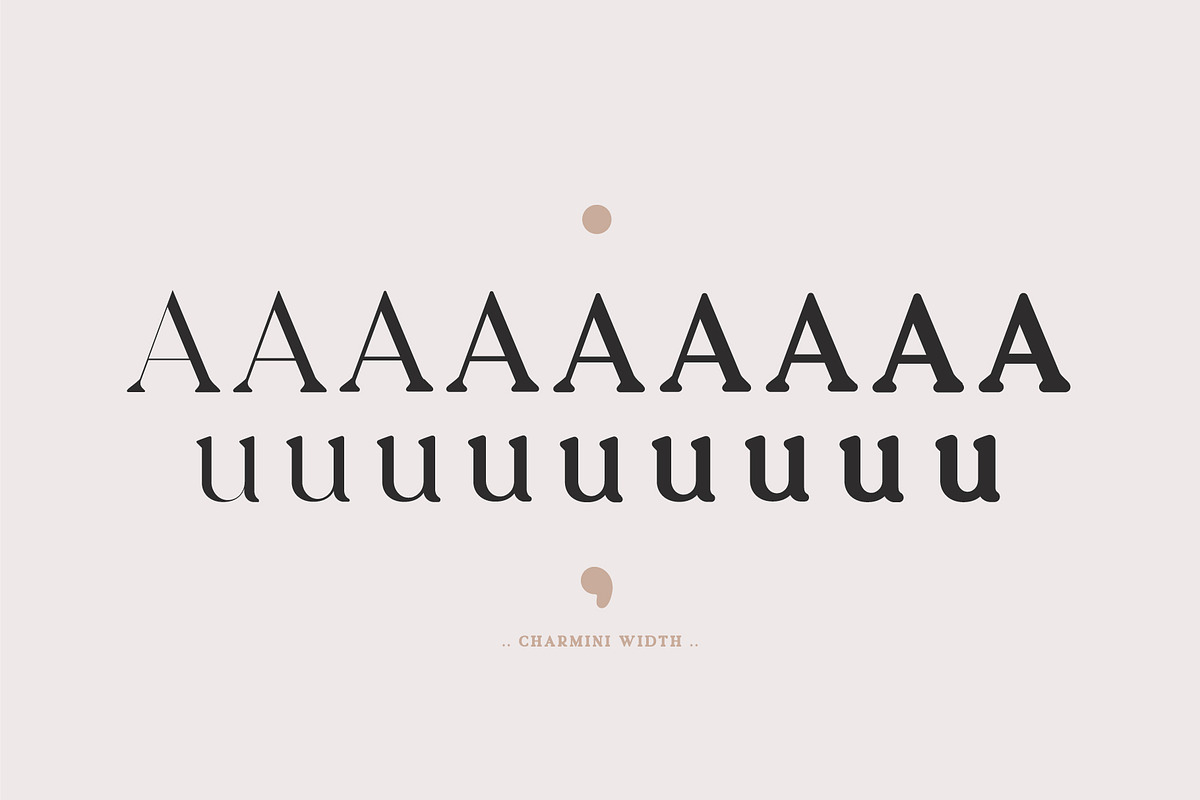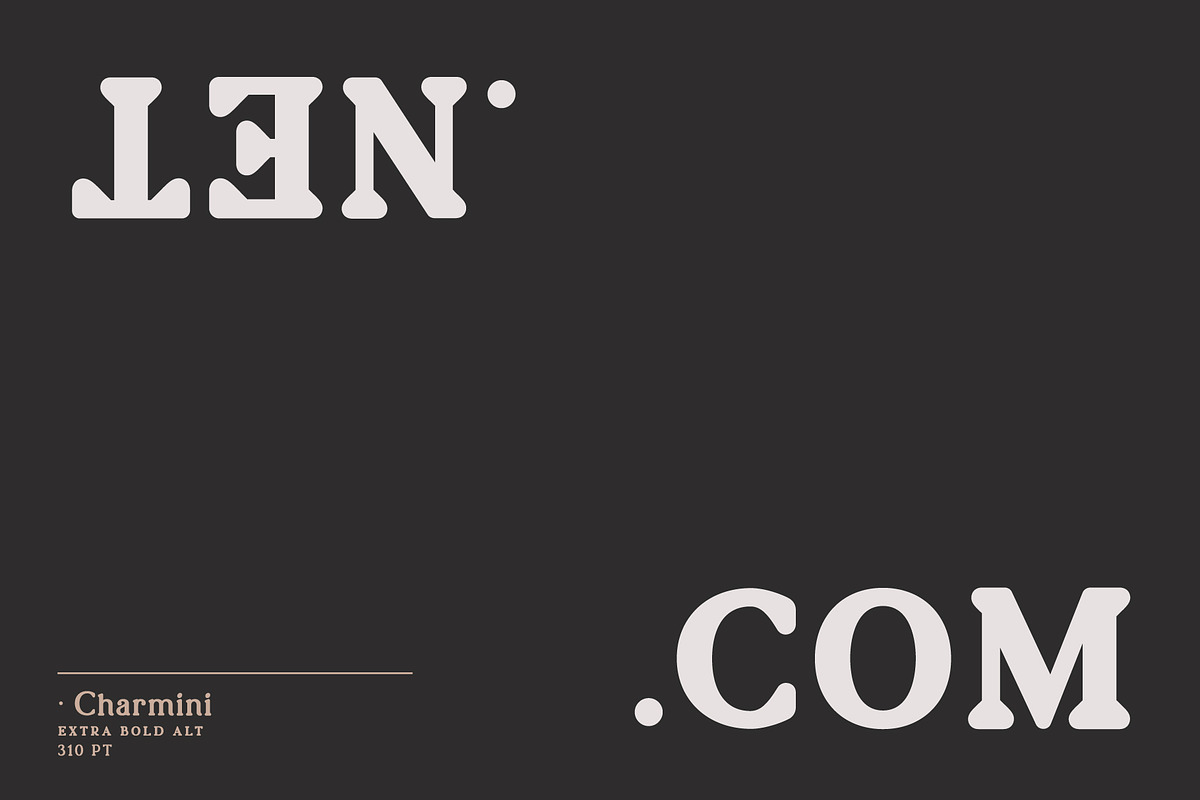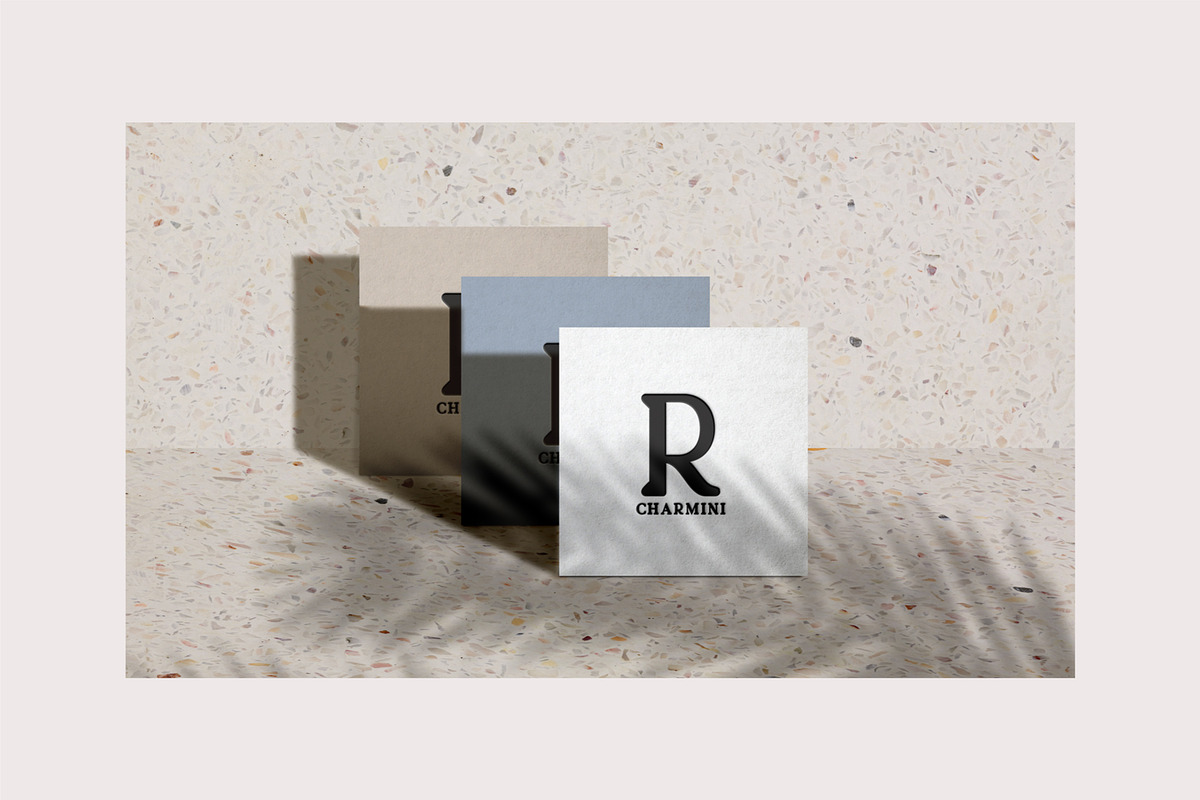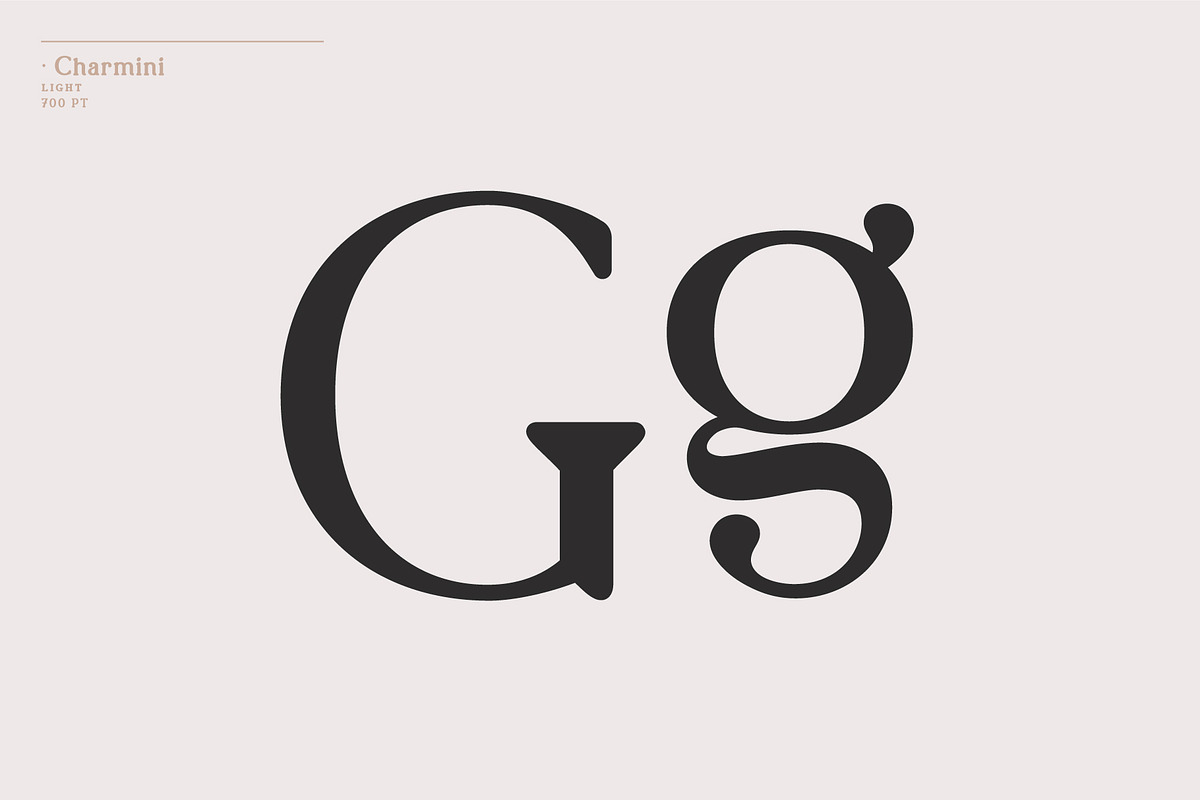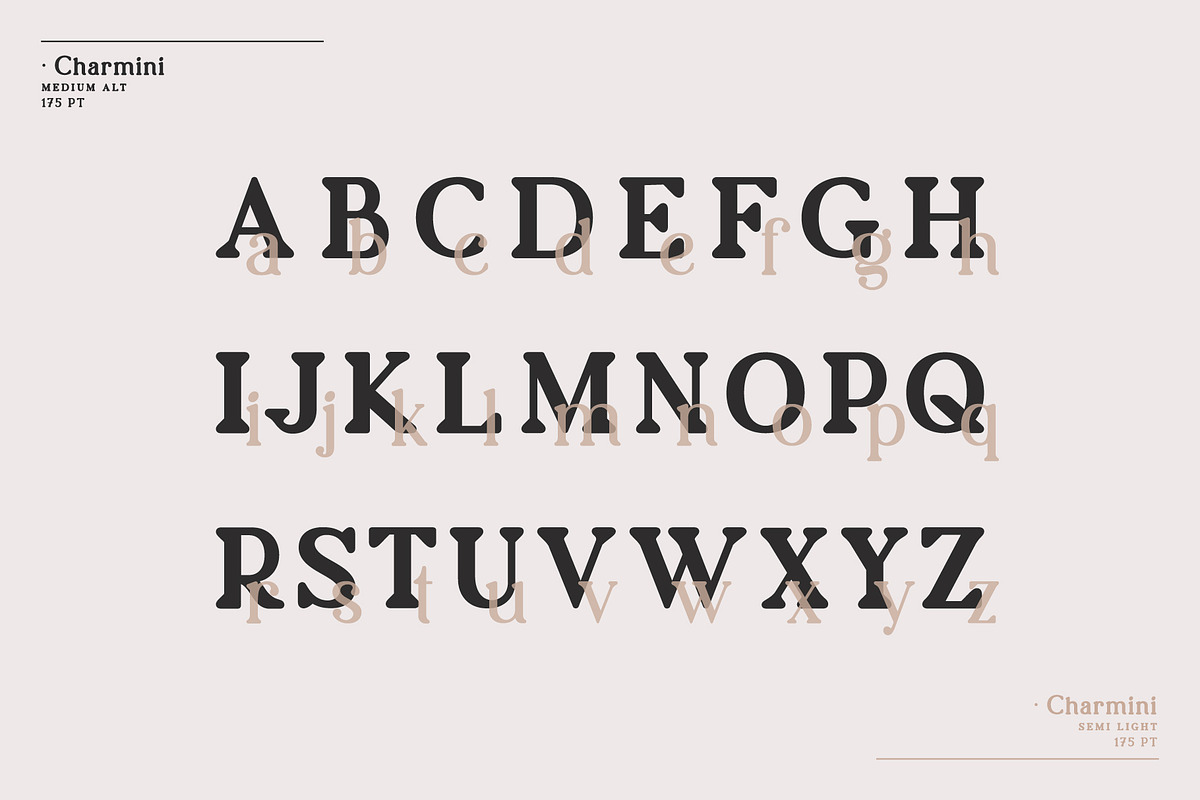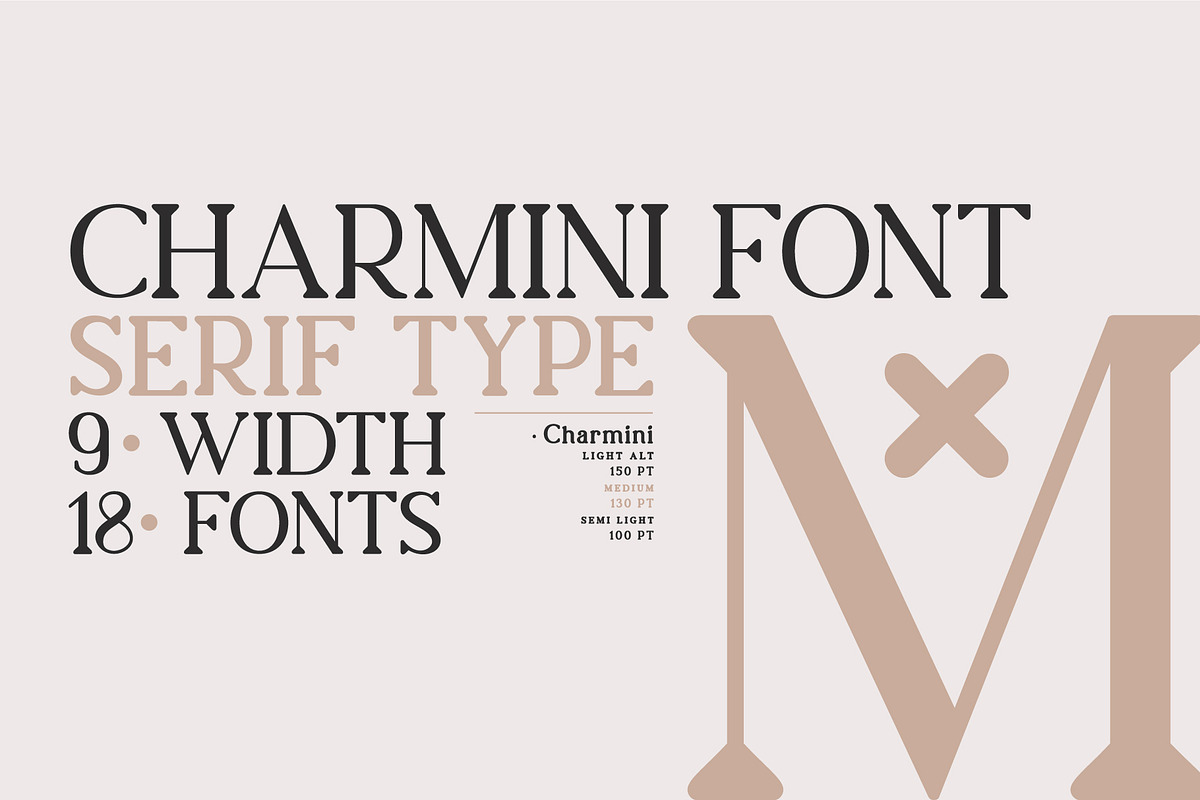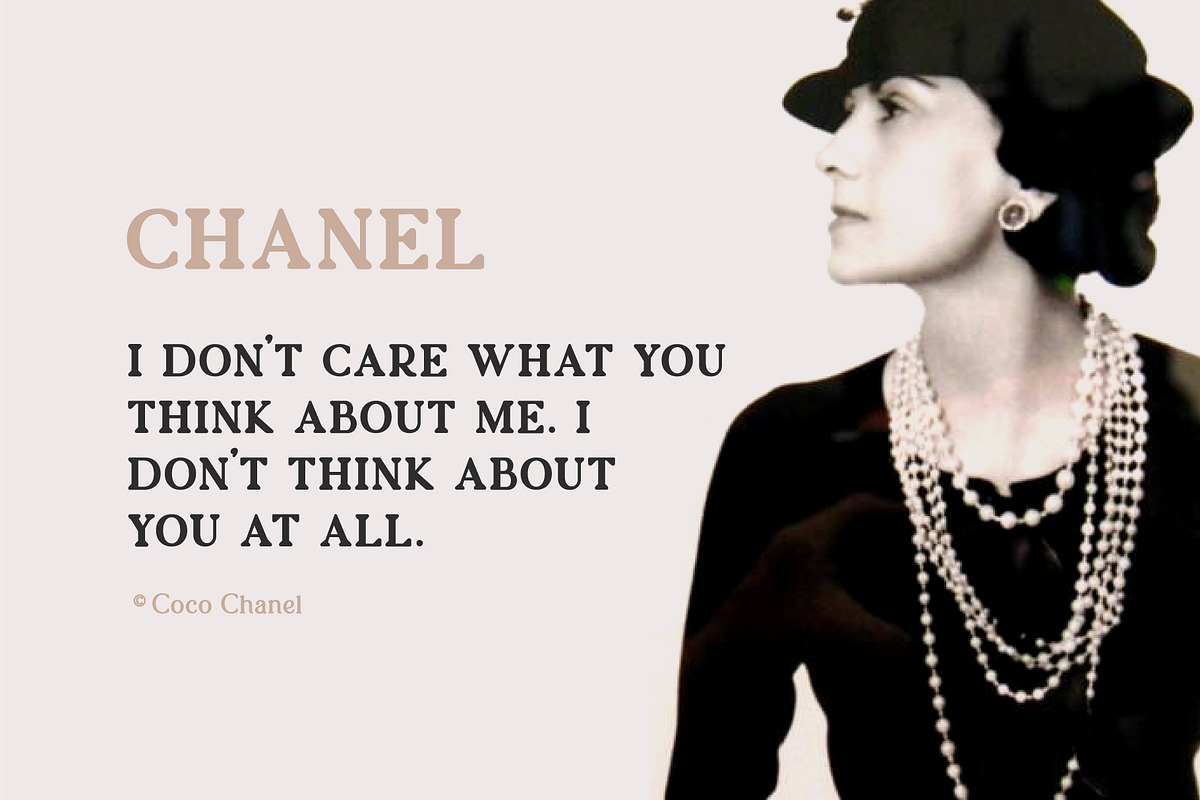
Charmini. Serif font family.
Charmini - is an exquisite font with a soft and at the same time confident serifs, modern and with a touch of retro. Font lines are strict with smooth, perfect transitions. Charmini family includes 2 types of lowercase letters and has 9 font thickness options - from the lightest weights, suitable for large amounts of text to the heaviest weights, intended for headlines.
UPPERCASE and 2 versions of lowercase letters
Numbers & basic Punctuation
9 variants of width + italic